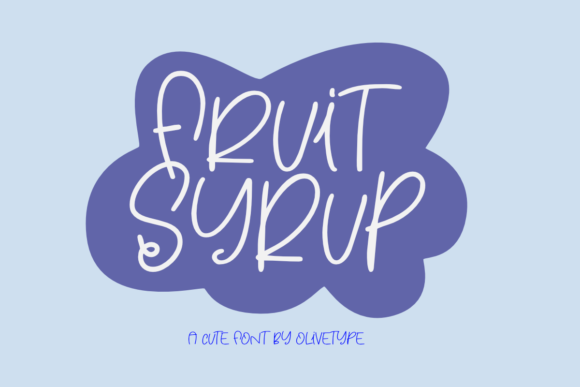
Fruit Syrup Font: A Simple yet Quirky Handwritten Font
The world of typography is vast and diverse, with numerous fonts catering to various design needs. Among these, the Fruit Syrup font stands out for its simplicity, thin lettering, and quirky handwritten style. In this article, we’ll delve into the features and benefits of the Fruit Syrup font, exploring how it can elevate your designs and become an invaluable asset to your font library.
What is Fruit Syrup Font?
Fruit Syrup is a simple, thin lettered, and quirky handwritten font designed to add a touch of personality to your creations. Its unique blend of elegance and playfulness makes it an excellent choice for a wide range of design projects. Whether you’re working on a logo, branding materials, social media graphics, or website content, the Fruit Syrup font is sure to make a lasting impression.
Key Features of Fruit Syrup Font
- Simple and Thin Lettering: The Fruit Syrup font boasts a slender and uncomplicated design, making it perfect for use in titles, headings, and short paragraphs.
- Quirky Handwritten Style: The font’s quirky and handwritten nature adds a touch of warmth and approachability, making it ideal for designs that require a personal touch.
- High Versatility: Fruit Syrup font can be used across various design projects, from logos and branding materials to social media graphics and website content.
- Ease of Readability: The font’s clean and simple design ensures excellent readability, even at smaller font sizes.
Benefits of Using Fruit Syrup Font
The Fruit Syrup font offers numerous benefits that make it an attractive addition to your font library. Some of the key advantages include:
Why Choose Fruit Syrup Font?
- Unique and Memorable: The Fruit Syrup font’s quirky design helps create unique and memorable designs that stand out from the crowd.
- Flexibility: The font’s versatility allows it to be used across various design projects, making it a valuable asset for designers.
- Time-Efficient: The Fruit Syrup font’s simplicity and readability save time and effort in design and editing, allowing you to focus on other creative aspects.
- Cross-Platform Compatibility: The font’s clean design ensures compatibility across various platforms and devices, guaranteeing a consistent visual experience.
Design Applications of Fruit Syrup Font
The Fruit Syrup font’s versatility makes it suitable for a wide range of design applications. Some of the most popular uses include:
Popular Design Uses
- Logos and Branding: The Fruit Syrup font’s unique design makes it perfect for creating memorable logos and branding materials.
- Social Media Graphics: The font’s quirky style and readability make it ideal for social media graphics, including posts, stories, and captions.
- Website Content: The Fruit Syrup font’s clean design and simplicity make it suitable for website content, including headings, titles, and body text.
- Advertising and Marketing: The font’s unique style and versatility make it perfect for use in advertising and marketing materials, such as flyers, brochures, and posters.
Tips for Using Fruit Syrup Font Effectively
To get the most out of the Fruit Syrup font, consider the following tips:
Best Practices
- Pair with Complementary Fonts: Combine the Fruit Syrup font with complementary fonts to create visual interest and hierarchy.
- Experiment with Colors: Take advantage of the font’s versatility by experimenting with different colors and color schemes.
- Pay Attention to Spacing: Ensure adequate spacing between letters and lines to maintain readability and visual flow.
- Use for Emphasis: Use the Fruit Syrup font to draw attention to key messages, headings, or calls-to-action.
In conclusion, the Fruit Syrup font is a simple yet quirky handwritten font that offers a unique blend of elegance and playfulness. Its versatility, readability, and memorable design make it an excellent addition to your font library. By incorporating the Fruit Syrup font into your designs, you’ll be able to create visually appealing and effective designs that stand out from the crowd.